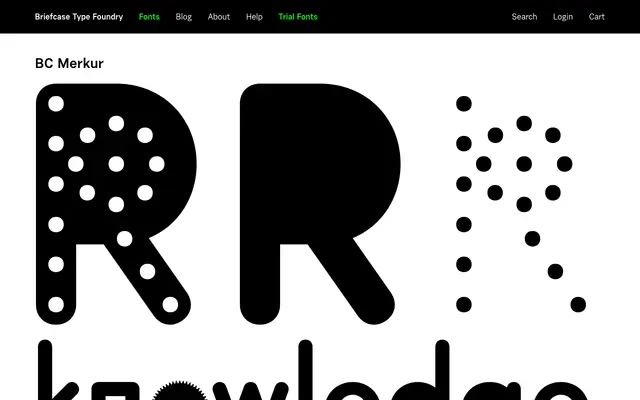
A sans-serif from Briefcase Type Foundry with a Central European grotesque character.
BC Merkur is a sans-serif typeface from Briefcase Type Foundry, a Czech studio known for its rigorous approach to type design. The name evokes the Mercury archetype common in Central European grotesque traditions. Specific details on weights, styles and language coverage were not available from the page content provided.
The name and foundry context suggest a Central European grotesque tradition; without further page content, a grotesque sans-serif classification is the most reasonable inference for a Briefcase Type release named Merkur.